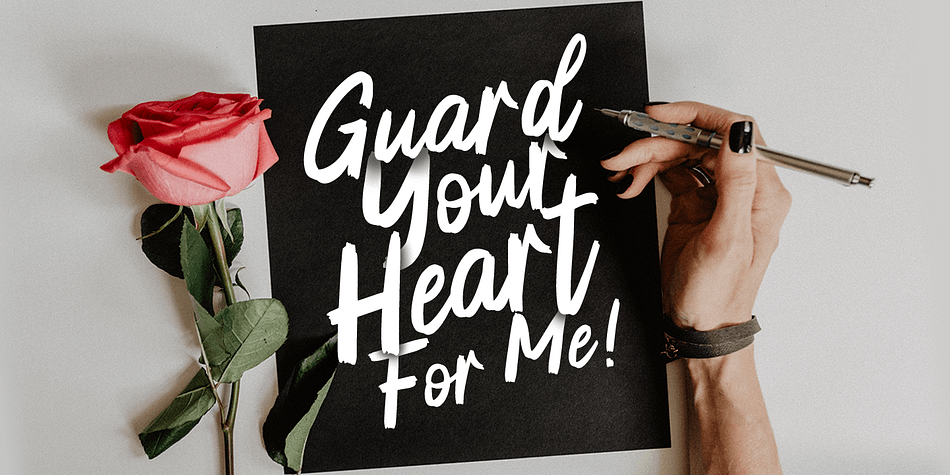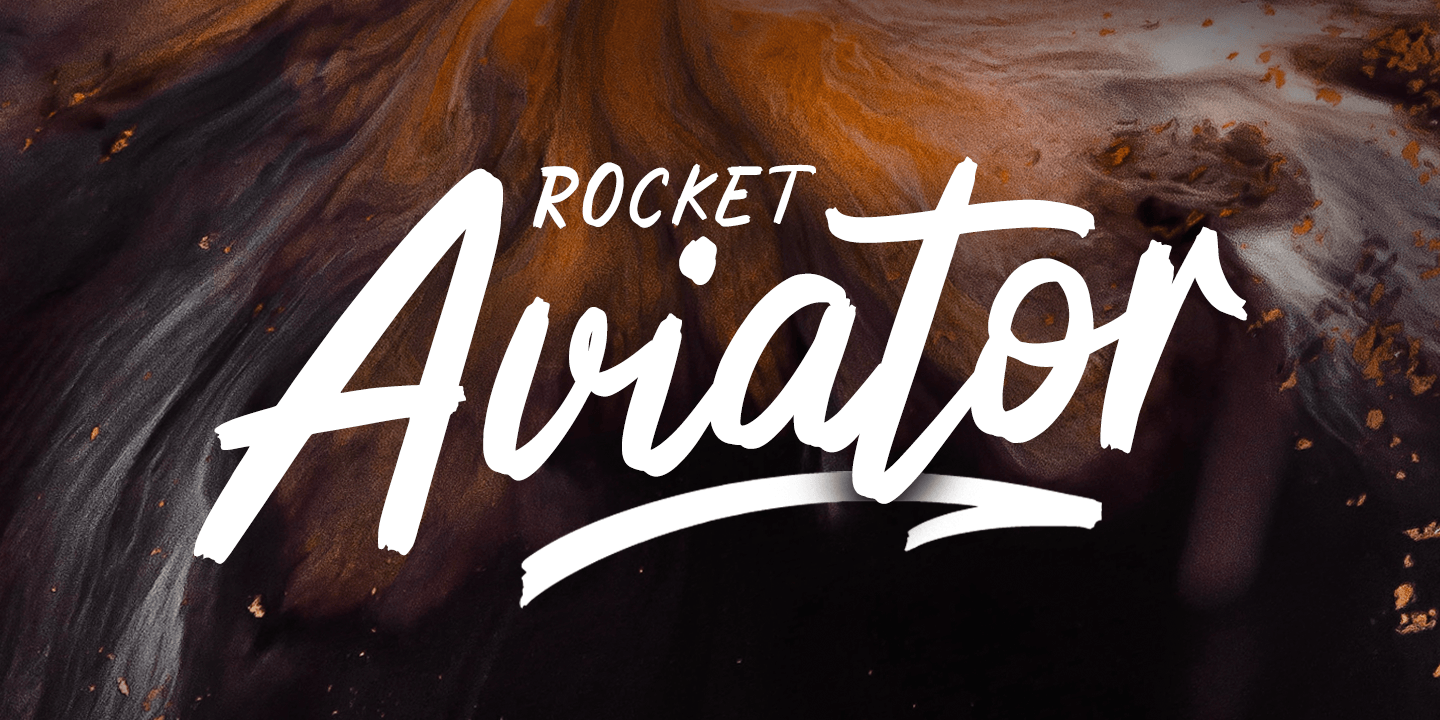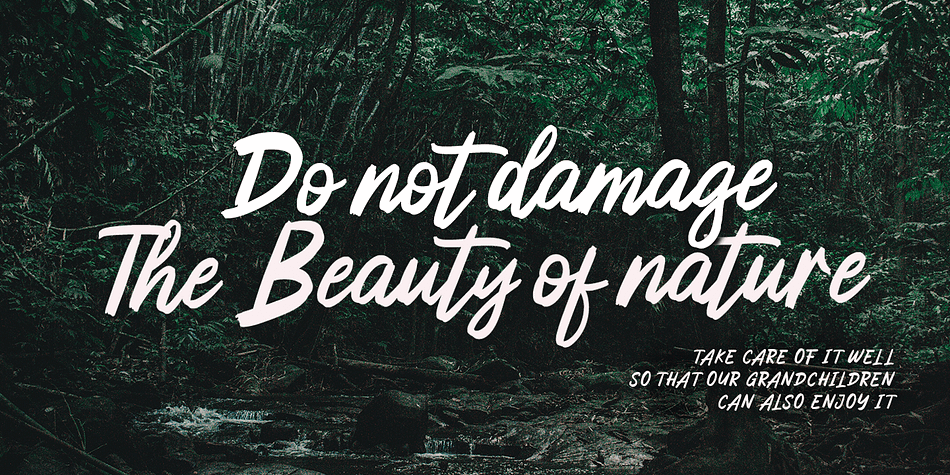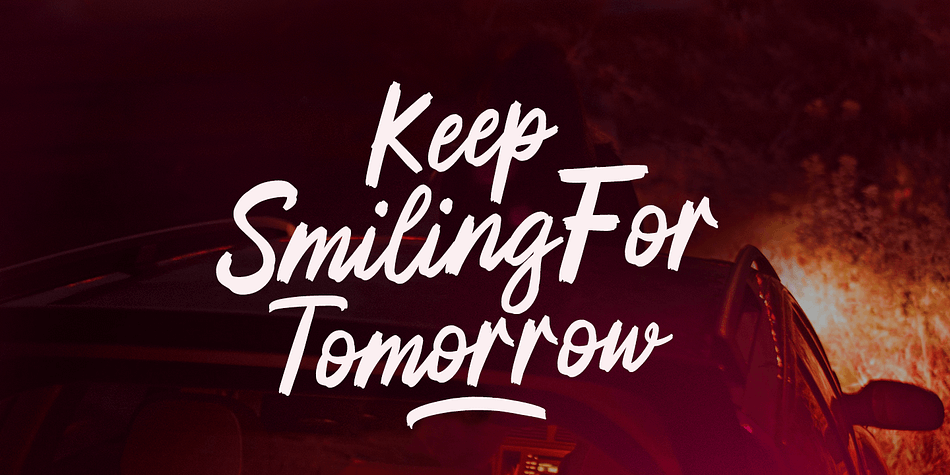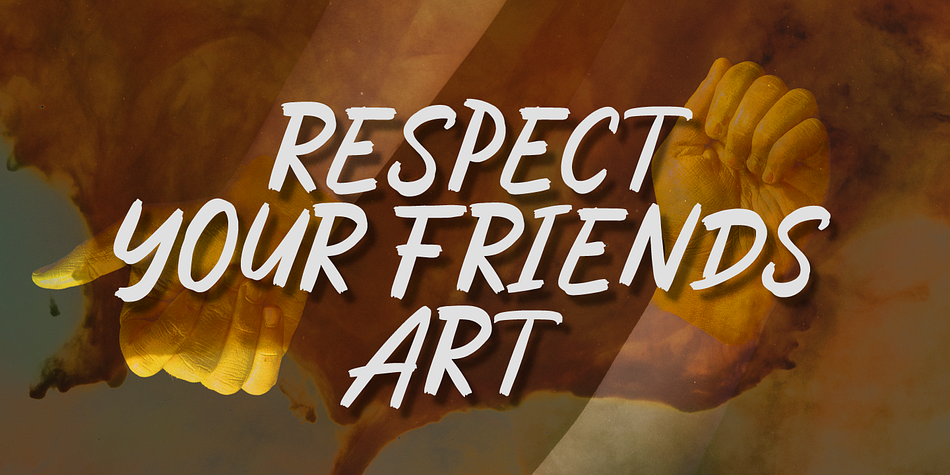
Rocket Aviator is a brush script, hand drawn and dingbat font family. This typeface has two styles and was published by Dhan Studio.
Rocket Aviator is a modern brush font, contemporary design approach, has a bold style and this font
also has an underline that makes your designs more interesting.
Suitable for use in title designs such as clothing, invitations, booklets, stationery designs,
quotes, branding, logos, greeting cards, t-shirts, packaging designs, posters, and more.